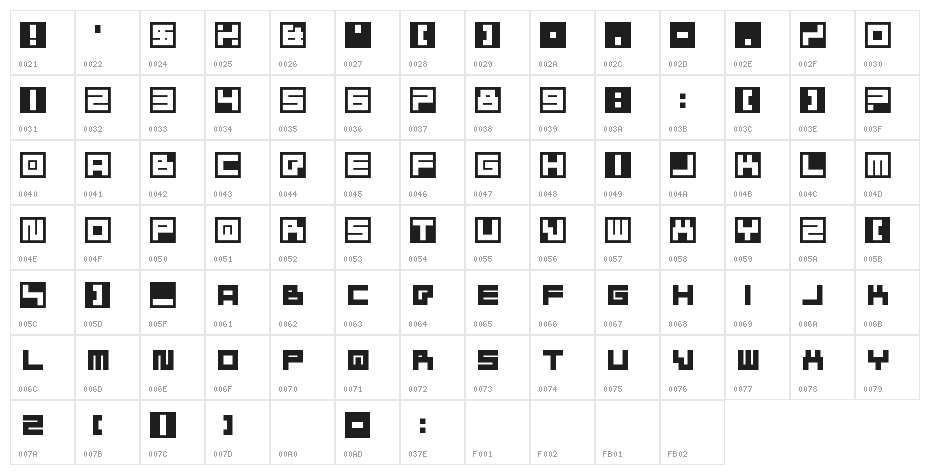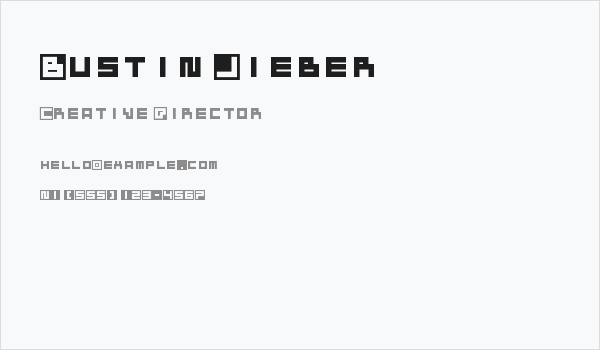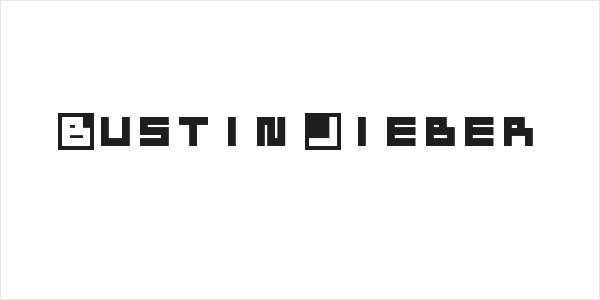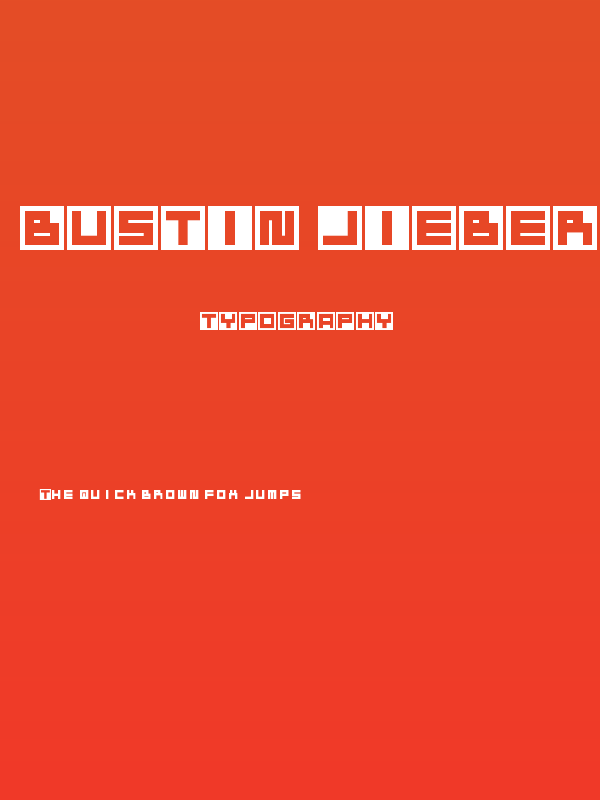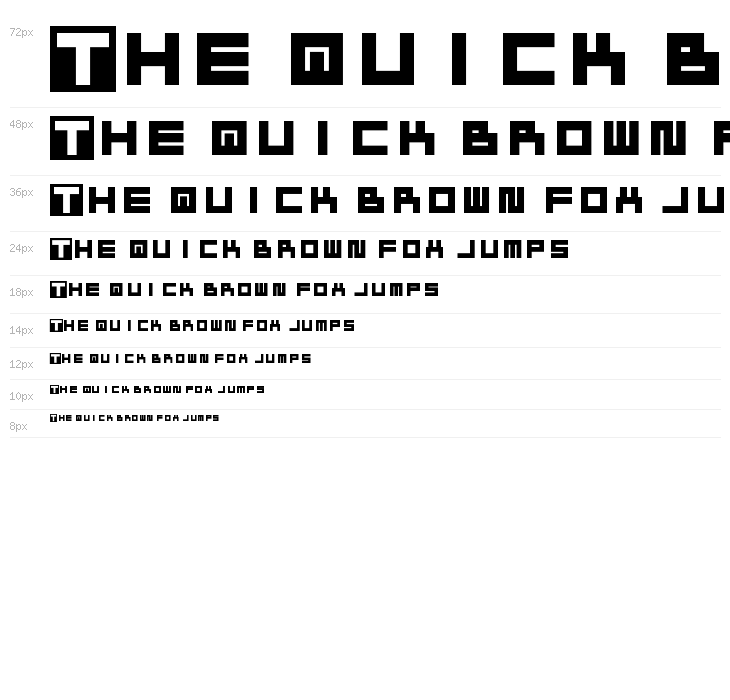
Bustin Jieber Font
Bustin Jieber Description
This font features a bold, geometric design with a strong emphasis on square shapes and sharp angles. Each character is enclosed within a square, giving it a distinct, blocky appearance. The uppercase letters are uniform in height and width, creating a cohesive and structured look. The lowercase letters maintain the same geometric style, ensuring consistency throughout. Numbers and special characters follow the same design principles, making them easily recognizable and visually striking. This font's unique style is ideal for projects that require a modern, digital, or futuristic aesthetic.
| Proposed Projects | Ideal for digital art, video game design, tech branding, and futuristic-themed projects. |